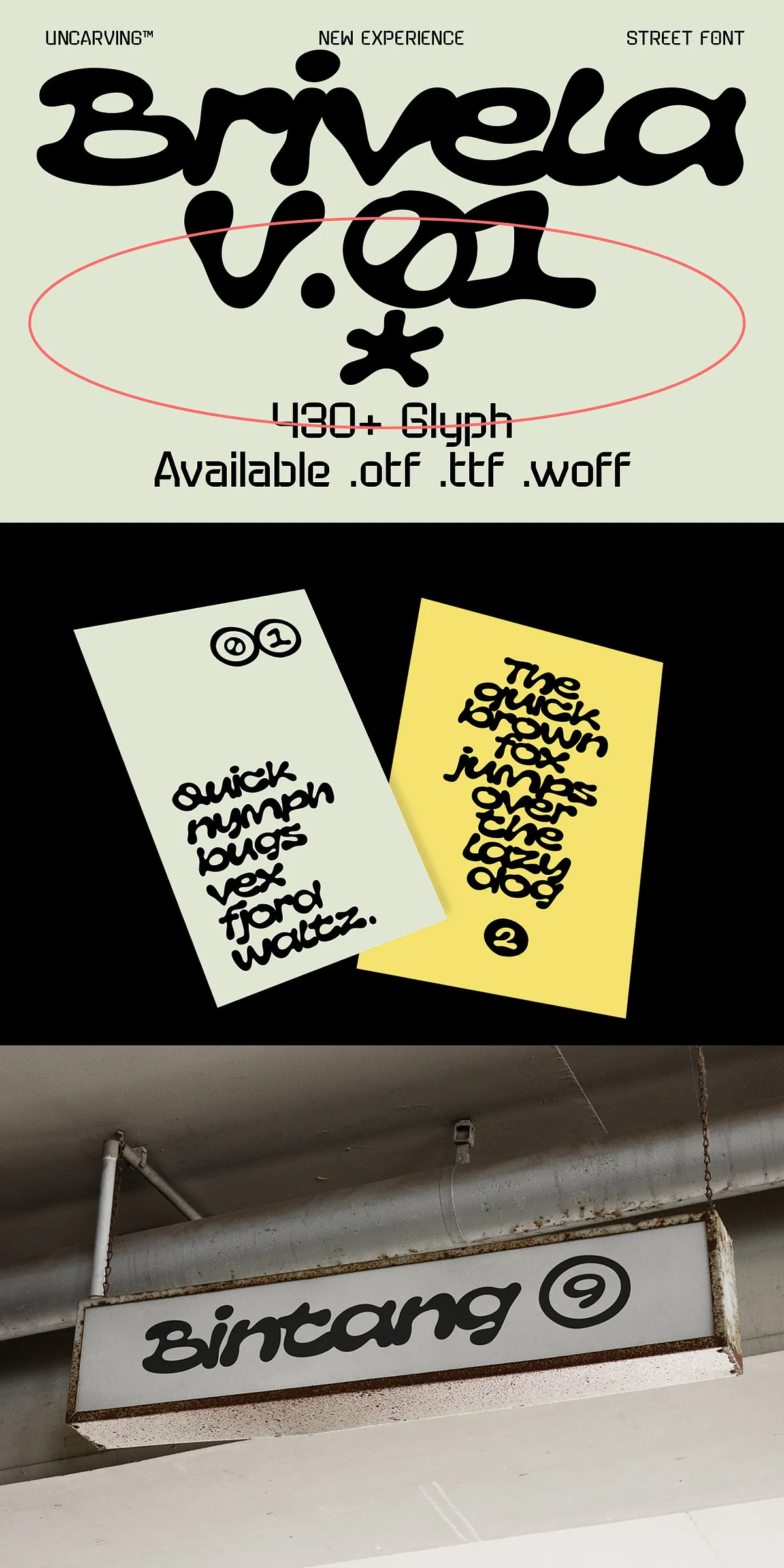
Stop blending into the background. Brivela Display doesn’t shout — it erupts. This isn’t just a font; it’s a statement forged in subway tunnels, spray-painted over concrete, and etched with the unfiltered energy of late-night city life. With its chunky, hand-sketched structure, Brivela delivers unmatched street-style dominance, making every letter feel like a declaration carved into the urban fabric.
Why Brivela Display is the Ultimate Urban Typographic Weapon
For creatives craving raw authenticity, Brivela delivers unfiltered impact. It’s engineered to dominate high-contrast visuals, standing out in a world saturated with sterile, digital fonts. Whether you’re designing for music, fashion, streetwear, or brand identities that value attitude, this typeface commands attention before the first word is even read.
- Authentic Street Aesthetic — Every stroke mimics the erratic, dynamic flow of a spray paint can, capturing the spontaneity and grit of real urban art. No algorithmic precision. Just pure, unfiltered rebellion.
- Unapologetically Bold — Built for maximum visibility. Its thick, heavy strokes cut through noise on posters, album covers, and digital banners. Perfect for titles, logos, and dominant headlines.
- Complete Character Set (430+ Characters) — From uppercase letters to lowercase, numerals, punctuation, and special symbols, Brivela offers full flexibility across creative projects, including multilingual support.
Where Brivela Truly Shines: Real-World Applications
Brivela Display isn’t just decorative — it’s functional. It transforms any project into a cultural moment.
- Music & Album Art — Command attention with artist names, track titles, and release dates that feel like they were slapped on the wall by a legendary tagger.
- Streetwear & Merchandising — Elevate t-shirts, caps, and tote bags with bold, eye-catching text that screams authenticity and attitude.
- Event Posters & Flyers — Make your concert, gig, or gallery opening impossible to ignore. Brivela turns static posters into dynamic visual experiences.
- Branding & Logos — For brands embracing raw, independent, or youth-driven identity, Brivela becomes the face of the movement — no corporate polish, just fierce character.
- Campaigns & Social Media — Use it in Instagram posts, TikTok visuals, and digital ads to cut through the scroll with undeniable street cred.
- ✅ Complete character set: 430+ glyphs, including alternate styles and stylistic sets
Dominate Your Creative Vision with Brivela
Brivela Display isn’t about fitting in — it’s about standing out. It’s for artists, designers, and brands that value edge, energy, and unfiltered expression. Don’t just choose a font. Claim a voice.